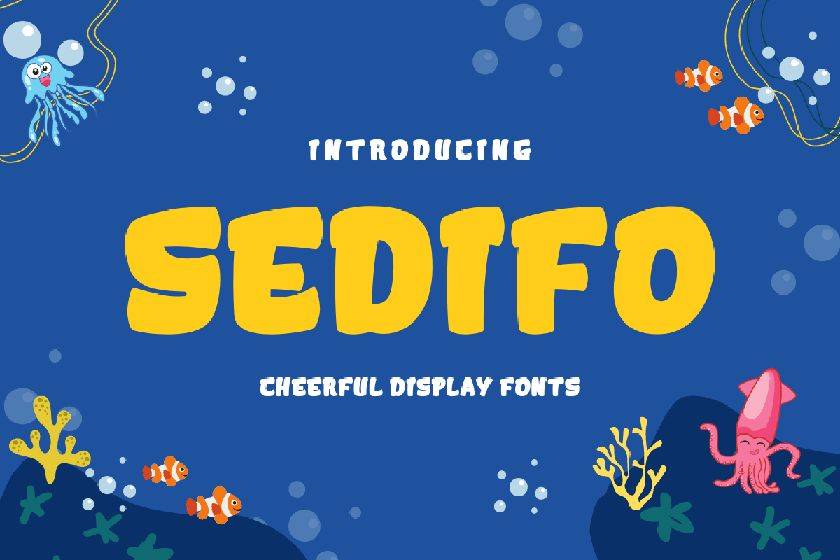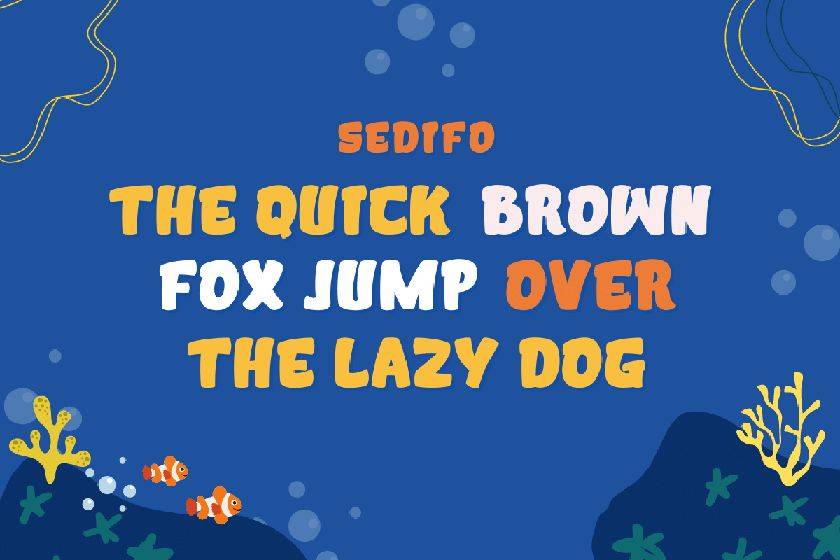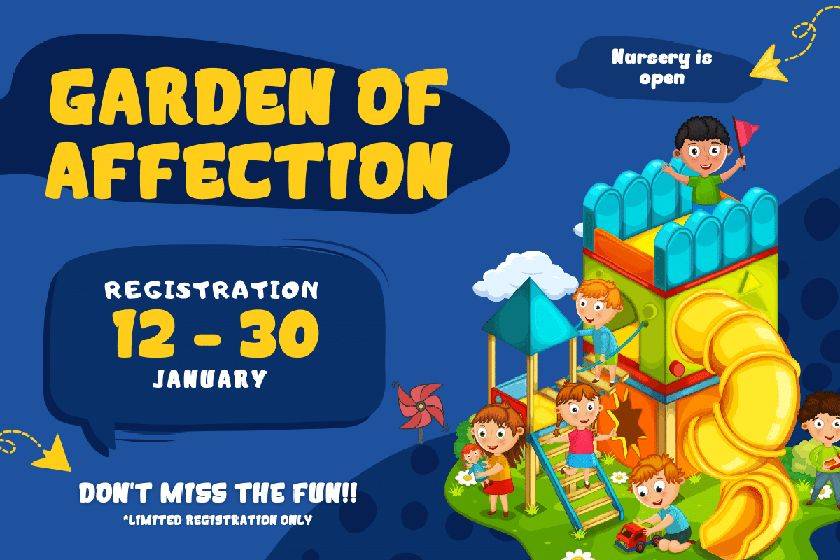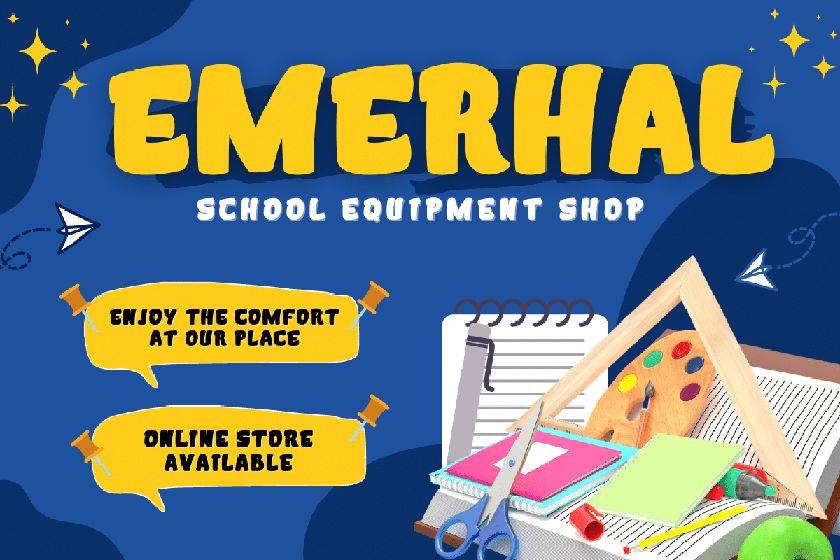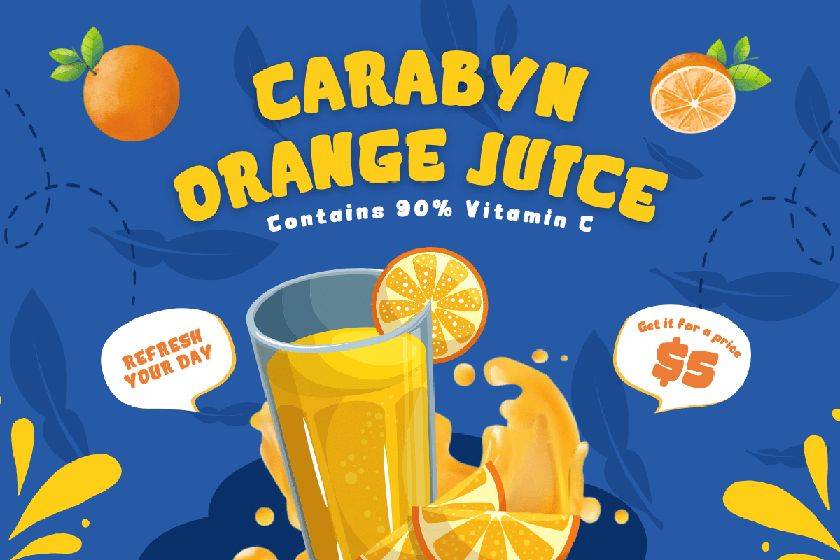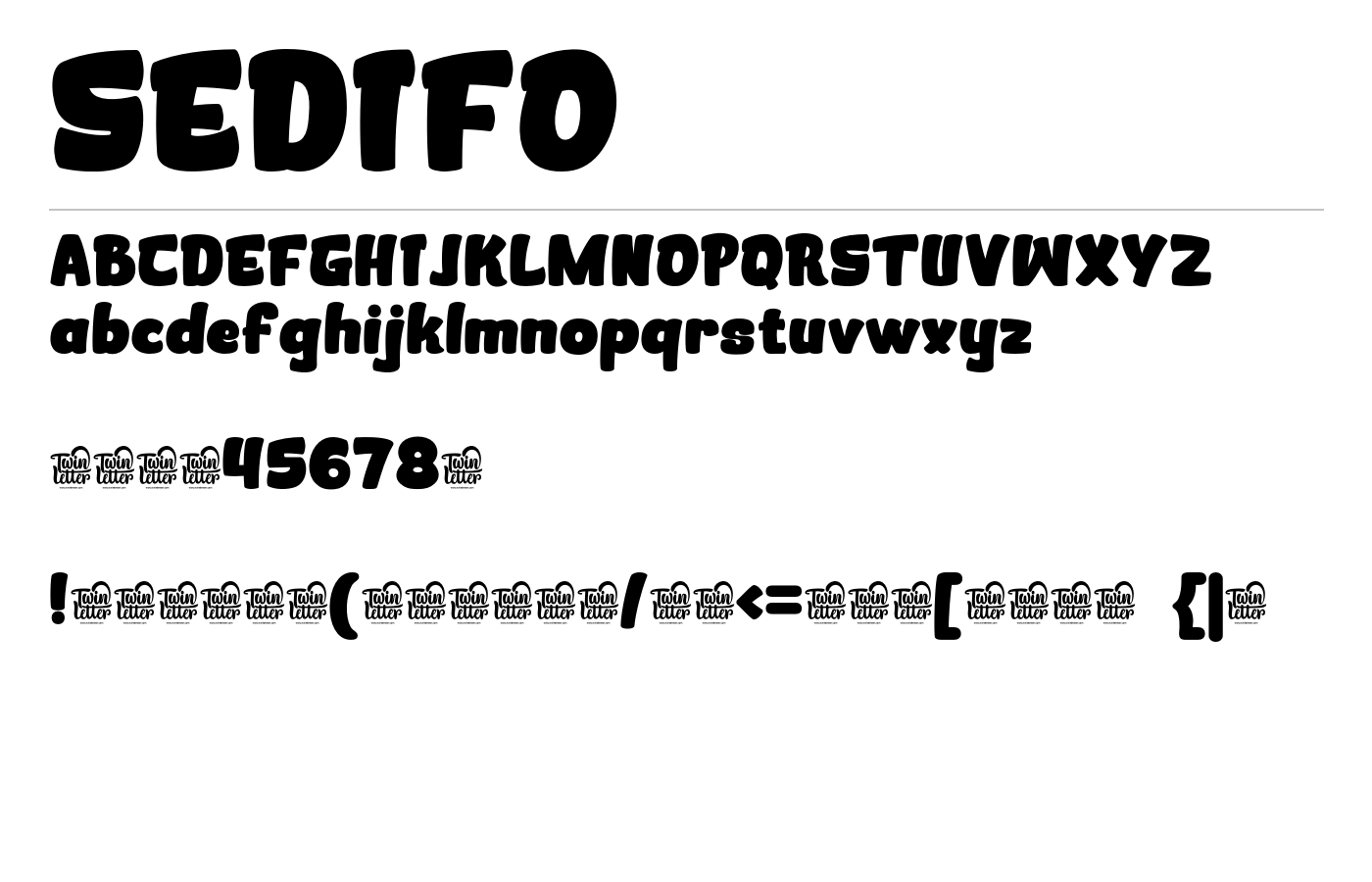
Sedifo is a bold, playful sans serif font with a chunky, rounded appearance that brings a fun and friendly vibe to any design. Its thick, slightly irregular letterforms and high x-height make it highly readable and perfect for eye-catching headlines, logos, and casual branding. This font works especially well in projects that aim to communicate warmth and approachability, such as children's products, informal advertising, and creative packaging.
Sedifo Font
About Sedifo Font